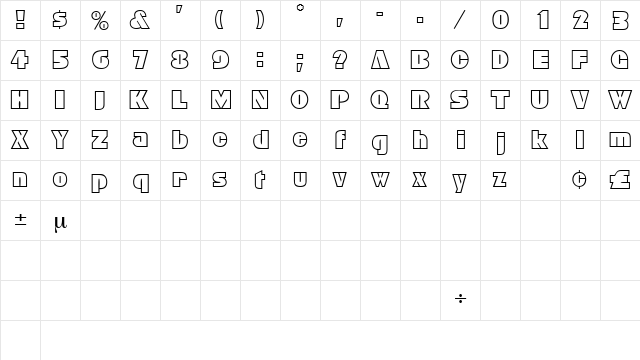
KenaOpenFaceDisplaySSK Regular
Design Context for KenaOpenFaceDisplaySSK Typeface
KenaOpenFaceDisplaySSK is built around its visual character rather than neutral utility — its distinctive forms are designed to make an impression at display sizes.
Font Pairing: Pair with a clean neutral sans-serif for body copy to let KenaOpenFaceDisplaySSK's character lead without overwhelming the composition.
Pro Tip: Treat KenaOpenFaceDisplaySSK as the centrepiece of your typographic hierarchy. One strong heading set in a decorative face can carry an entire layout.